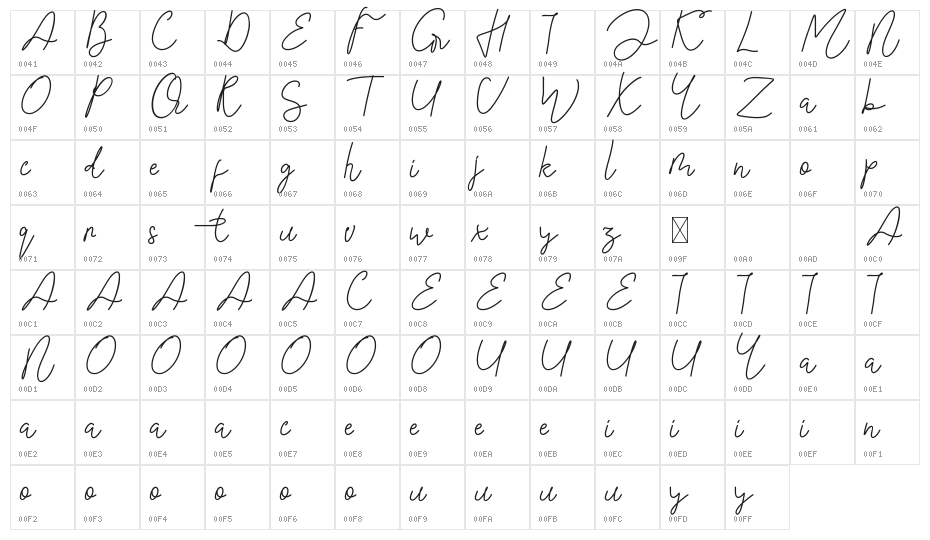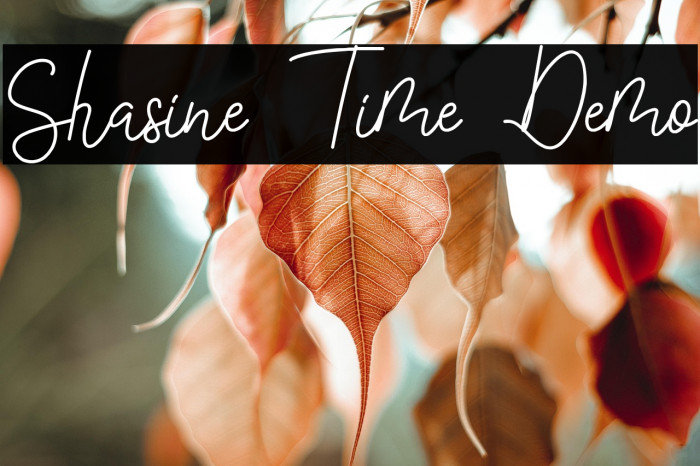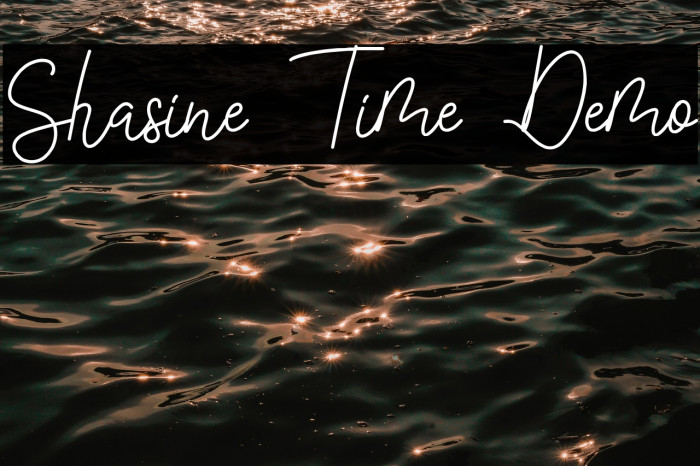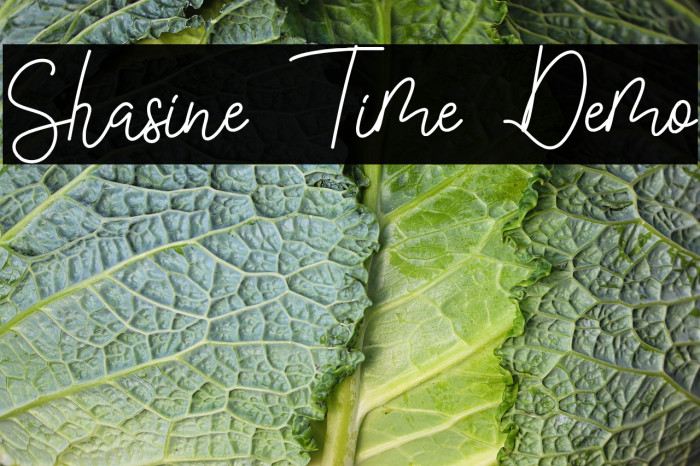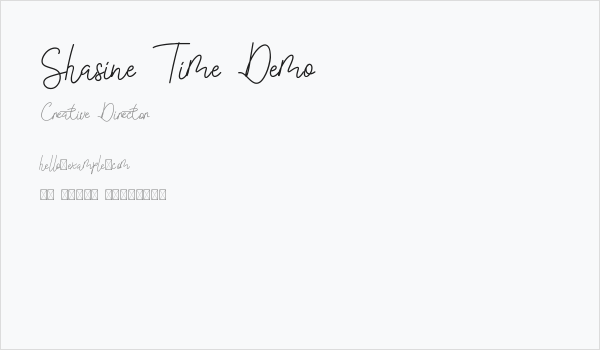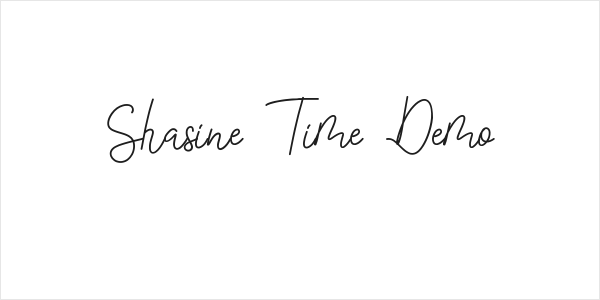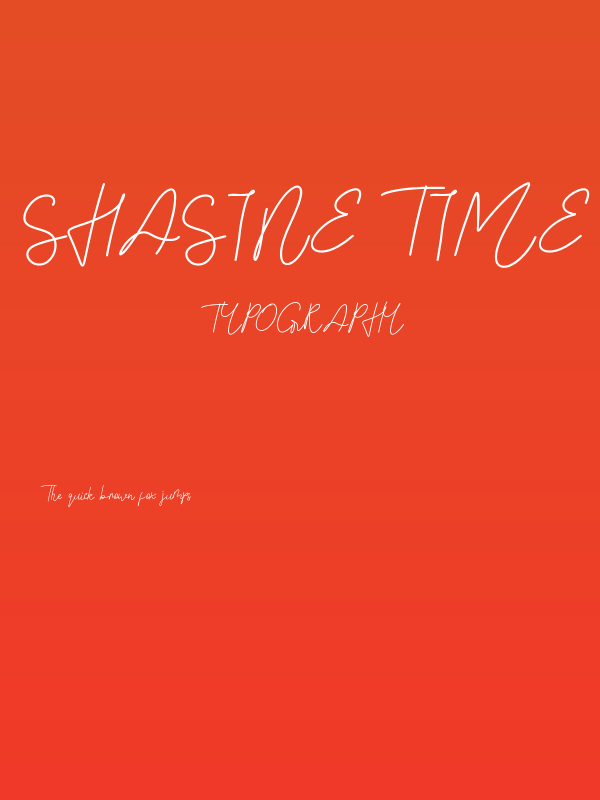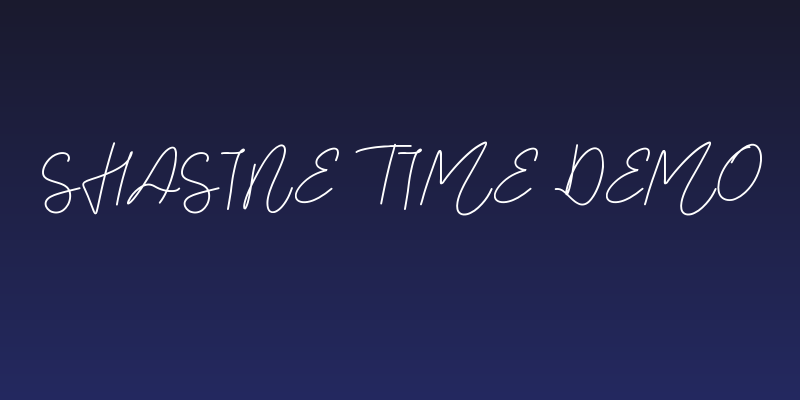
Shasine Time Demo Font
Shasine Time Demo Description
This font exhibits a fluid, cursive style that mimics natural handwriting with a modern twist. The uppercase letters are elegantly elongated with smooth curves, while the lowercase letters maintain a consistent flow, enhancing readability. The strokes are thin and delicate, giving the font a light and airy feel. The numbers and special characters are designed to match the overall aesthetic, maintaining the same graceful and flowing style. This font is perfect for projects that require a personal touch, such as invitations, greeting cards, or branding materials. Its unique style stands out, making it suitable for decorative purposes.
| Use Case | Logos, Decorative text, Invitations |
| Proposed Projects | Ideal for invitations, greeting cards, branding, and decorative projects. |